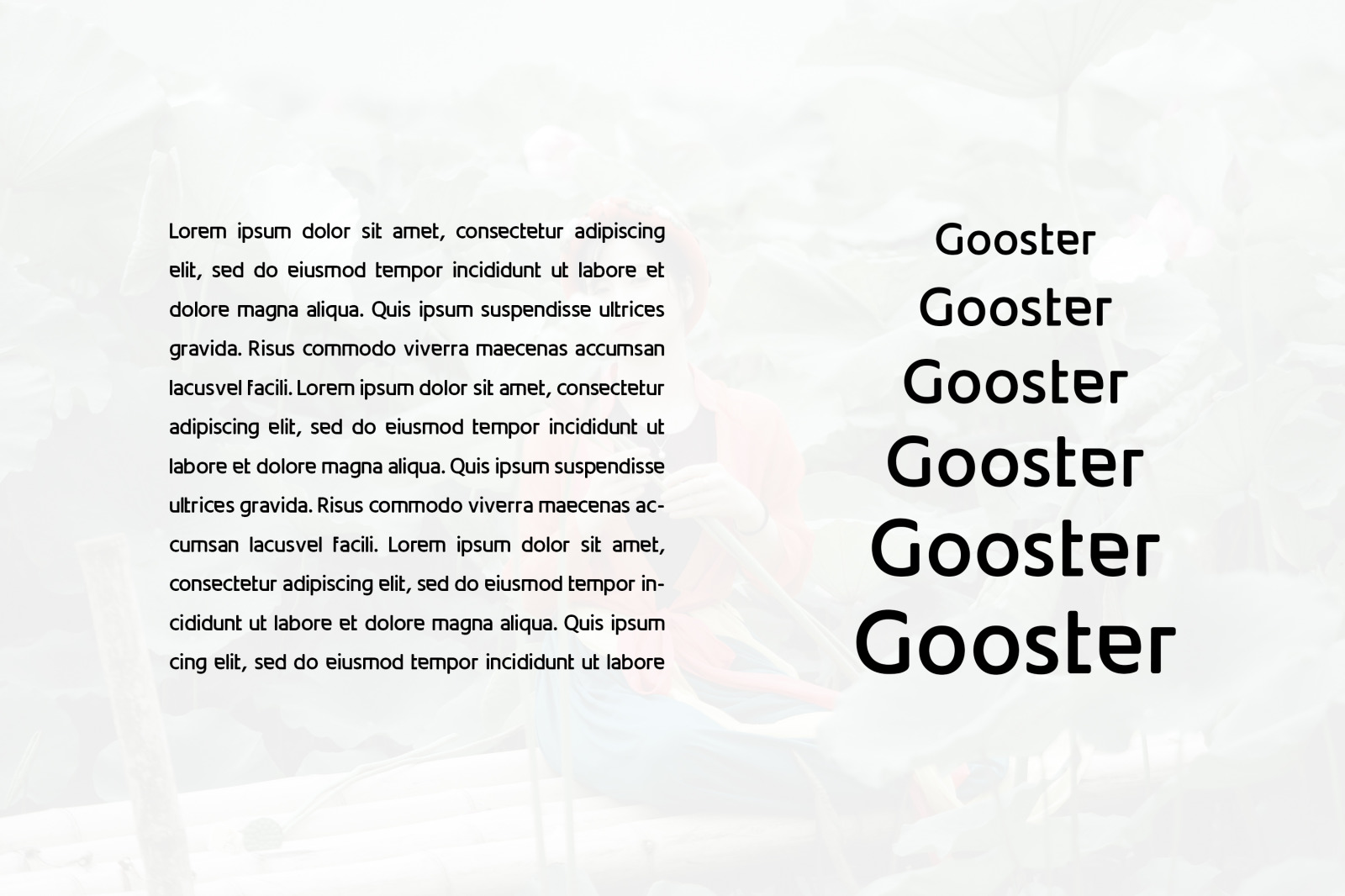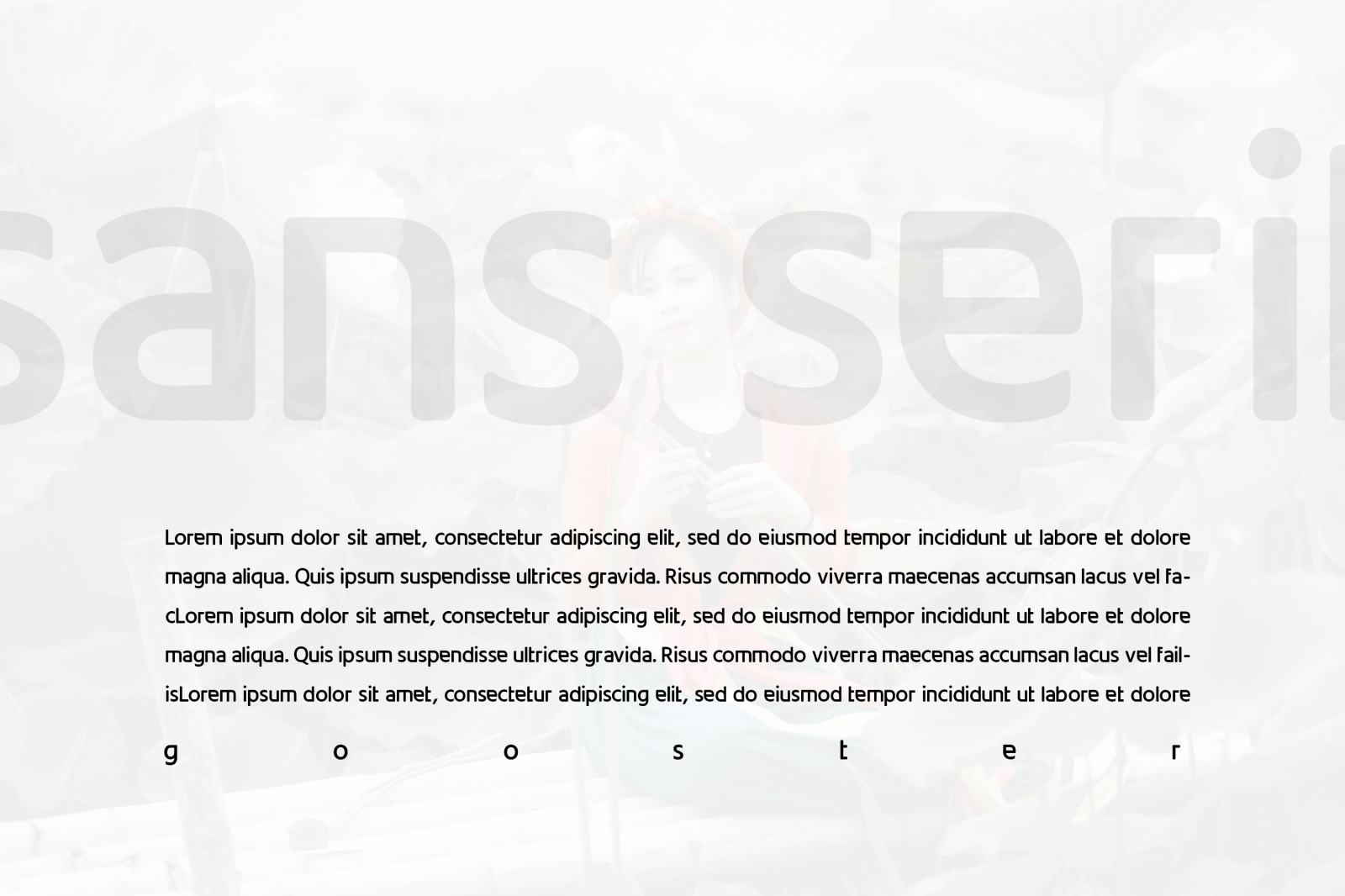
Gooster Font
Gooster is a Medium type sans serif font.This font perfect for your upcoming projects. Such as logo branding, editorial design, Branding, music poster, website design, modern advertising design, poster quote, book/cover title, special events, and any more
Uppercase & Lowercase
Number
Punctuation & Symbol